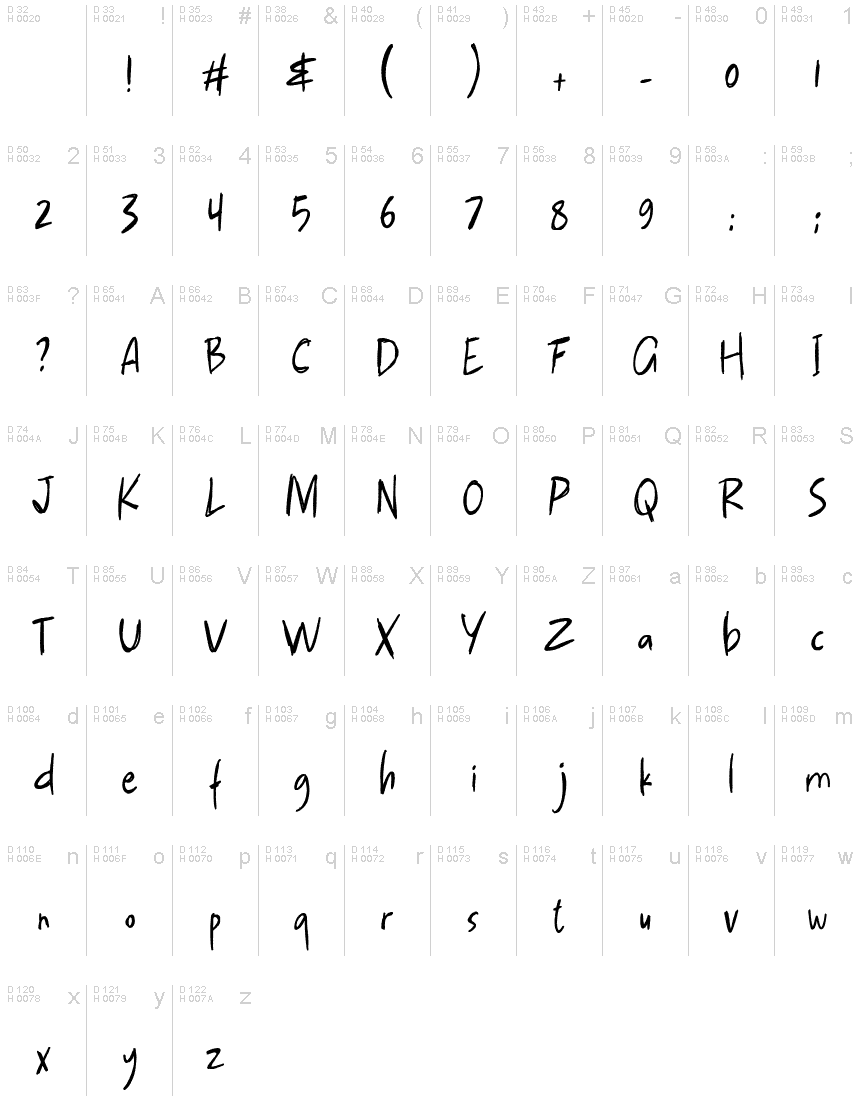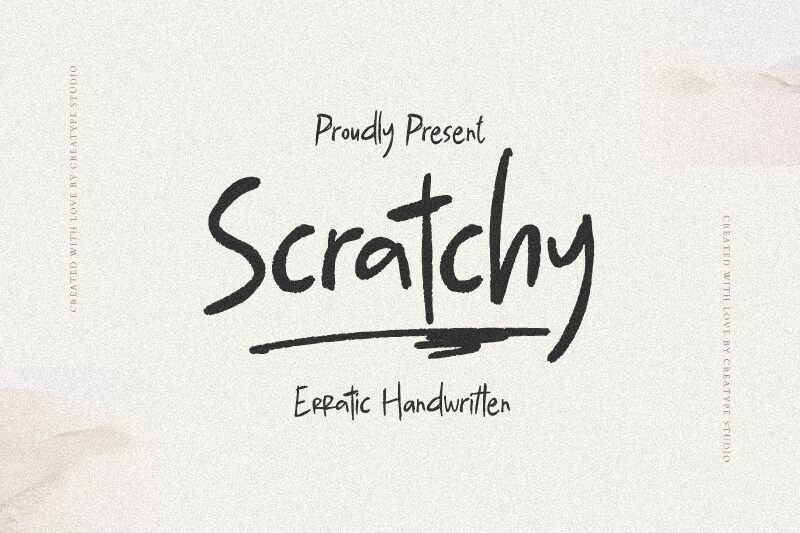
Scratchy Regular
Scratchy, the delightful semi-light, semi-condensed handwritten font from Creatype Studio is here to add a playful touch to your projects. With its quirky and fun style, Scratchy is perfect for branding projects that require a touch of whimsy. Its unique design makes it ideal for greeting cards, invitations, posters, and other print media. Whether you're looking to create an eye-catching logo or want to add some personality to your blog posts, Scratchy's got you covered. So why not take this charming font out for a spin and let your creativity run wild?